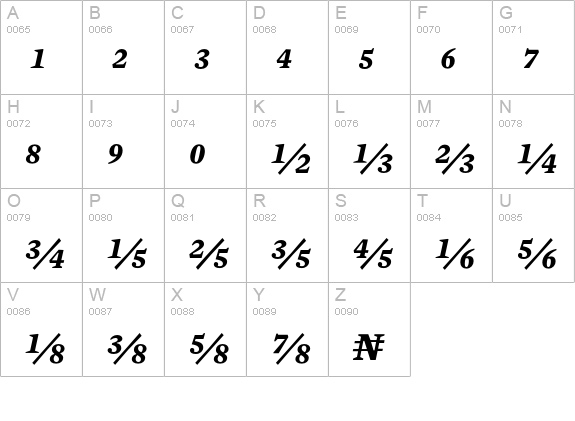
Mercury Numeric G4 Bold Italic Font Details
Mercury Numeric G4 Bold Italic is a strong, high-contrast, italic variant in the Mercury typeface family \xE2\x80\x94 well suited to headlines, attention-grabbing titles, and strong calls-to-action.
Mercury Numeric G4 Bold Italic font is a striking and modern typeface that exudes confidence and elegance. With its bold weight and sleek italic styling, this font is perfect for making a bold statement in your designs. Whether you are creating branding materials, signage, or digital content, Mercury Numeric G4 Bold Italic font will help your message stand out and make a lasting impression. Best of all, this font is available for free download at FontsMarket.com. Take advantage of this fantastic opportunity to enhance your design projects with the Mercury Numeric G4 Bold Italic font today!